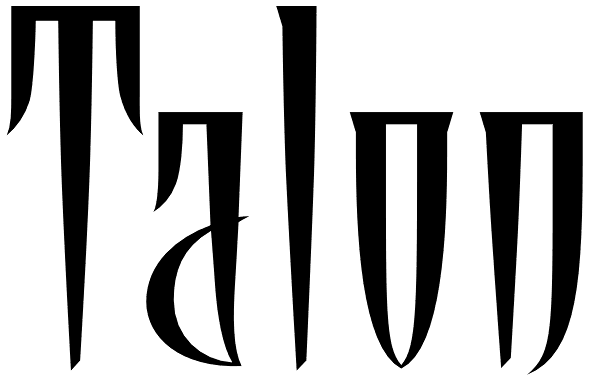
Talon
Talon is a display design from the hand of Richard Lipton. The seed of the idea was a handful of characters drawn by the Los Angeles graphic designer Margo Chase. From this scattering of capitals, Lipton organized and designed a complete display...